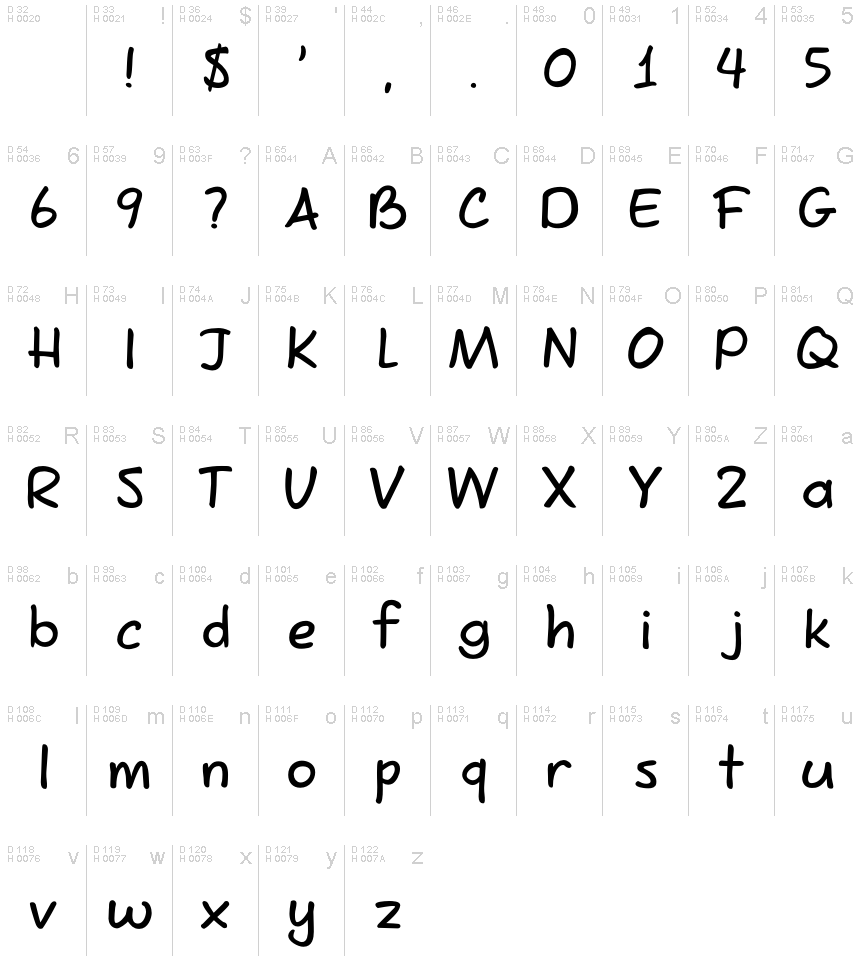
Snappy Fingers DEMO Regular
Snappy Fingers font, designed by David Kerkhoff of Kitchen Table Type Foundry, exudes a playful, handwritten charm that instantly captivates. Its lively strokes and whimsical curves create an inviting appearance, making it perfect for designs that demand a personal touch. The font's expressive style highlights its vibrant character, boasting an engaging feel that elevates any text.
Ideal for project branding, children's materials, or casual invitations, Snappy Fingers brings warmth and friendliness to every piece. Its unique flair ensures that it stands out in both print and digital formats, effortlessly drawing the viewer’s eye while maintaining clarity across various applications. With Snappy Fingers, your designs can resonate with joy and creativity.